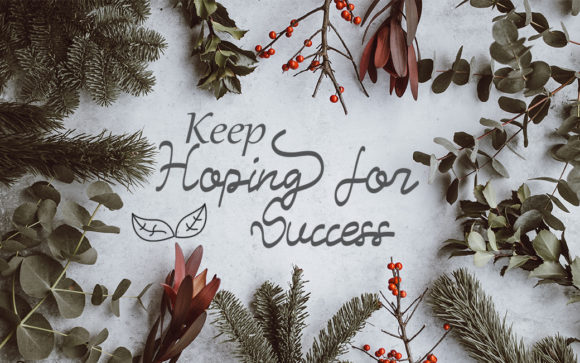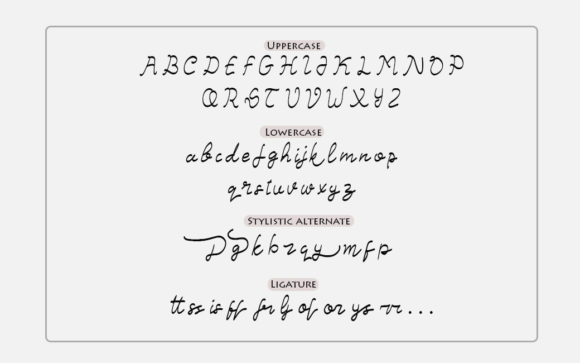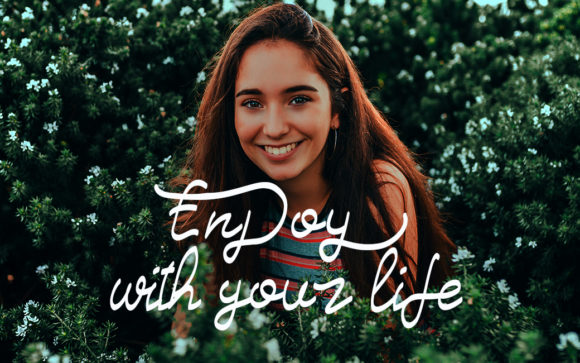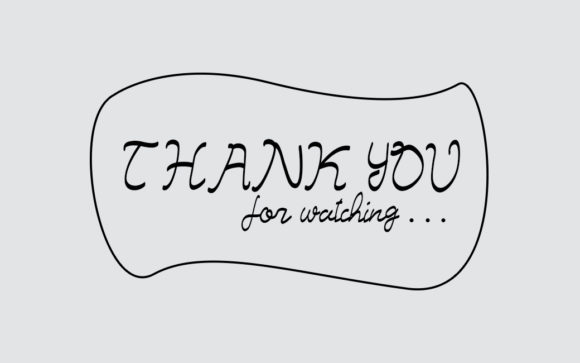
HomeScript FontsLetsdy Font Script Fonts Letsdy Font FacebookXPinterestWhatsApp Letsdy Font Poster 2 Letsdy Font Poster 3 Letsdy Font Poster 4 Letsdy Font Poster 5 About Letsdy Font Letsdy is a fun and unique handwritten font with lots of authentic charm! Get inspired by its beautiful feel. DOWNLOAD NOW People also explored Pregnancy and Baby Font Hillos Font Dramon Font Bigota Font Motisan Font Datanna Kids White Bella Canvas 3001T Tee Mockup My Oh My Font Jastland Font 329 0 TagsLetsdy Font Previous articlePhoenix Script Trio FontNext articleRoadsouth Font LEAVE A REPLY Cancel reply Comment: Please enter your comment! Name:* Please enter your name here Email:* You have entered an incorrect email address! Please enter your email address here Website: Save my name, email, and website in this browser for the next time I comment. Personal Use Free Over the Top Personal Use Free Read more about this font Bright Dreams Personal Use Free Read more about this font Strings Personal Use Free Read more about this font My Ugly Handwritting Personal Use Free Read more about this font BLOG Top 10 Handwritten Fonts That Elevate Your Designs Top 10 Handwritten Fonts That Will Elevate Your Designs Handwritten fonts bring a warm, personal touch to every creative project. Whether you're designing logos, invitations,... 5 Fonts That Will Dominate Design Trends in 2026 Elegant Wedding Invitation Fonts – Handwritten & Script Fonts To increase your work productivity, choose the most readable fonts.